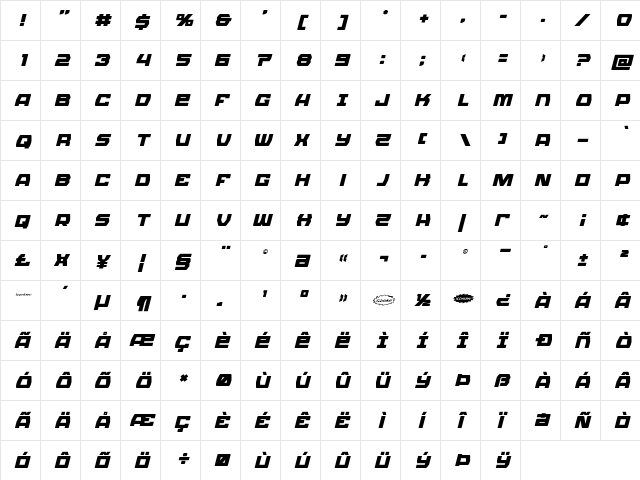
Olympic Carrier Title Italic Italic
Design Context for Olympic Carrier Title Italic Typeface
Olympic Carrier Title Italic is a composed and adaptable typeface that performs quietly and consistently across a wide range of design contexts. Its italic angle brings a sense of urgency and motion to the letterforms.